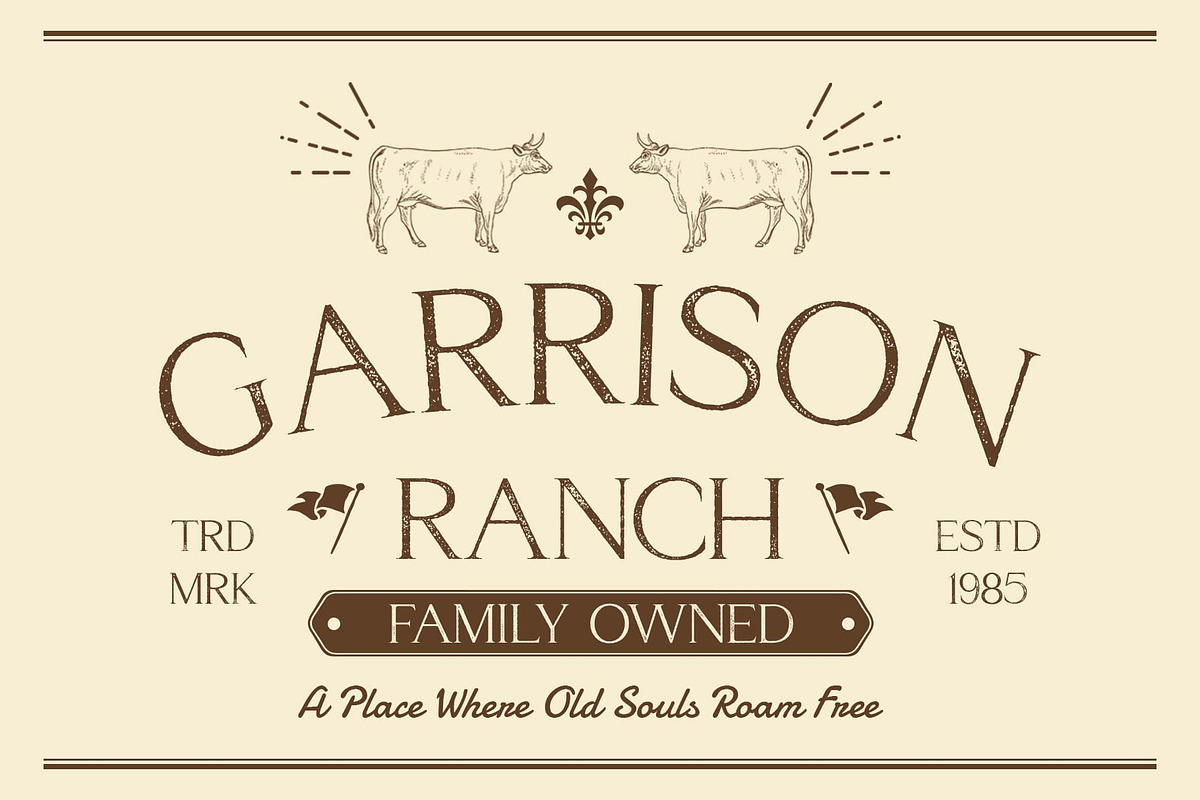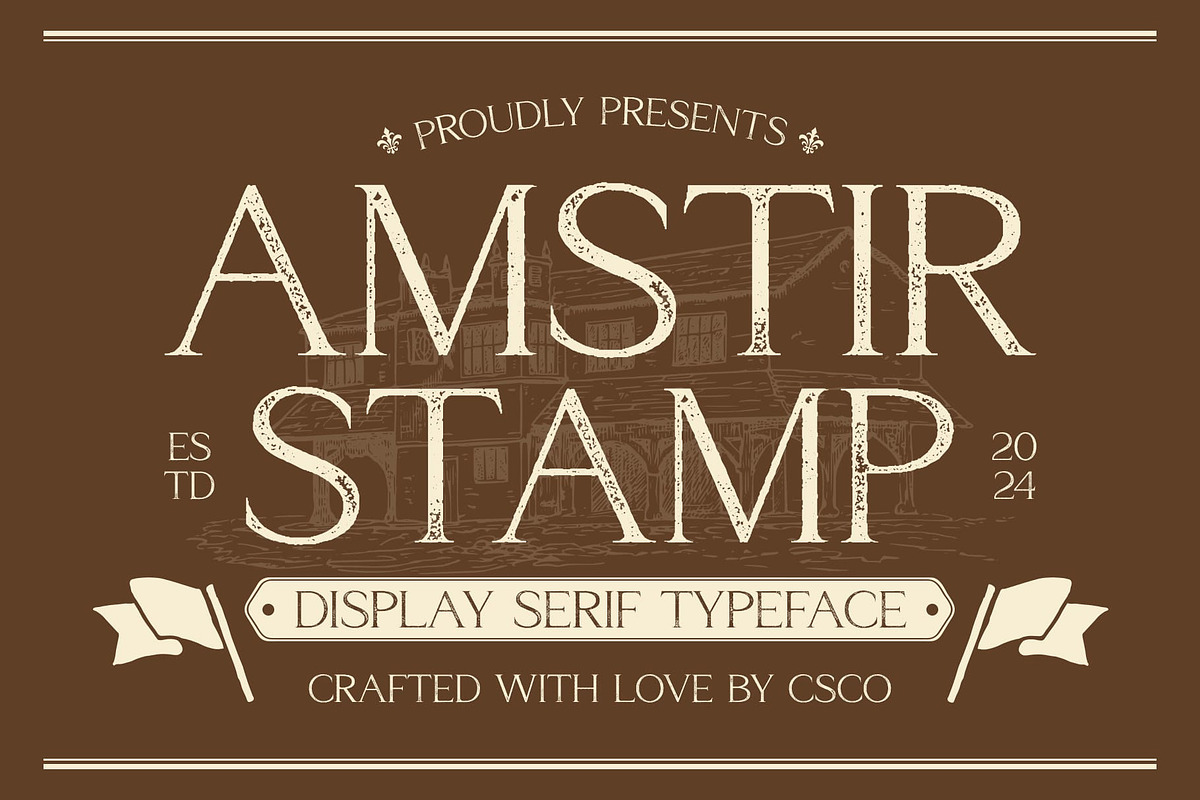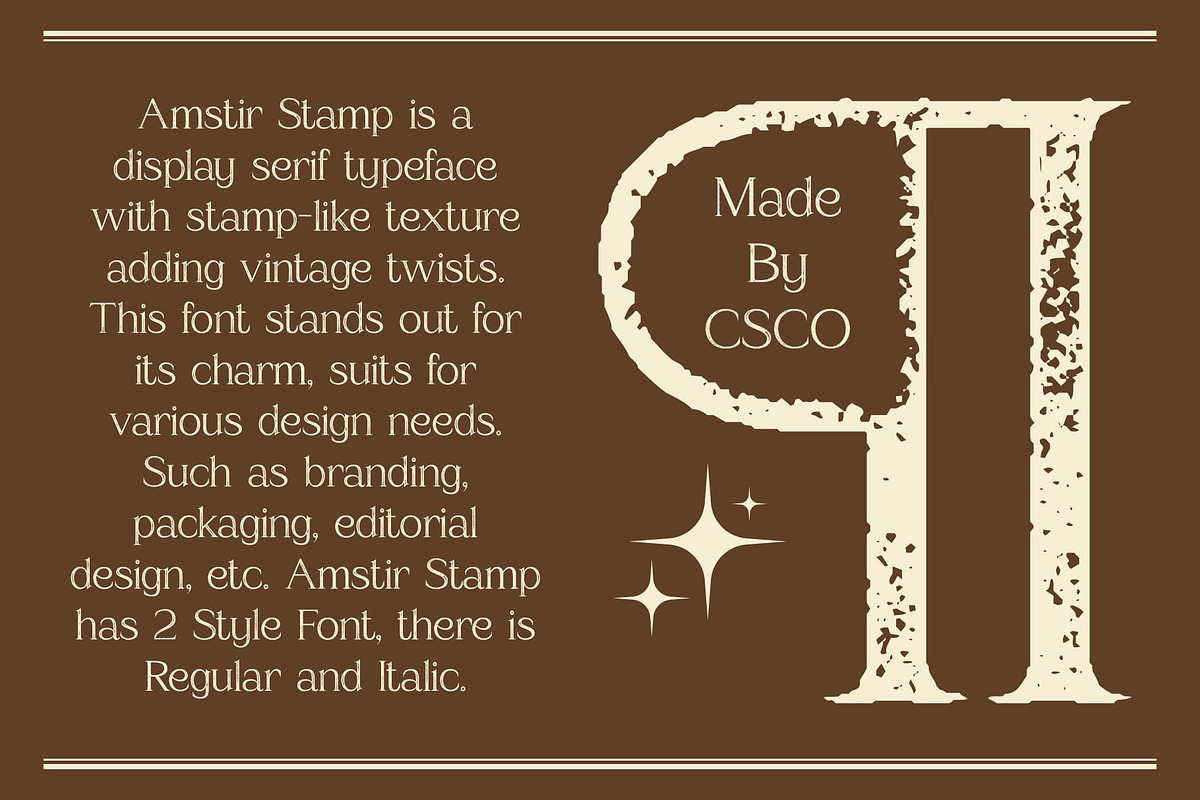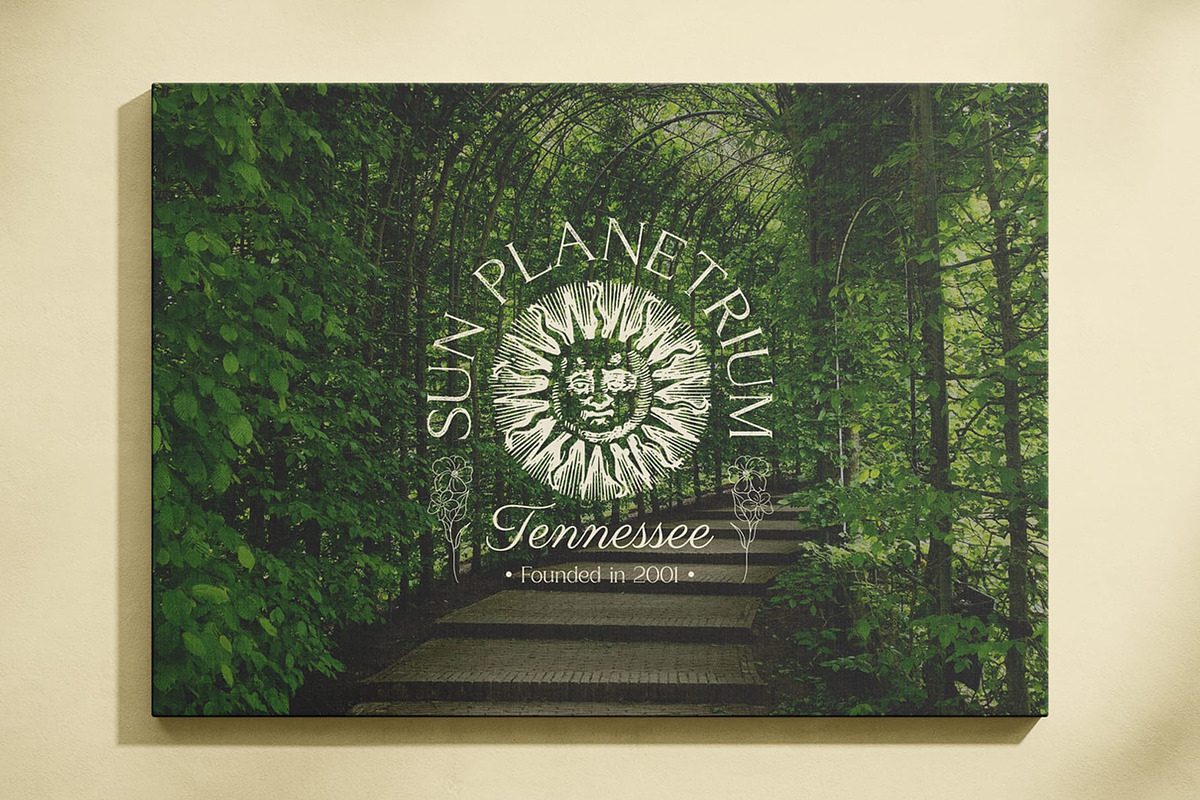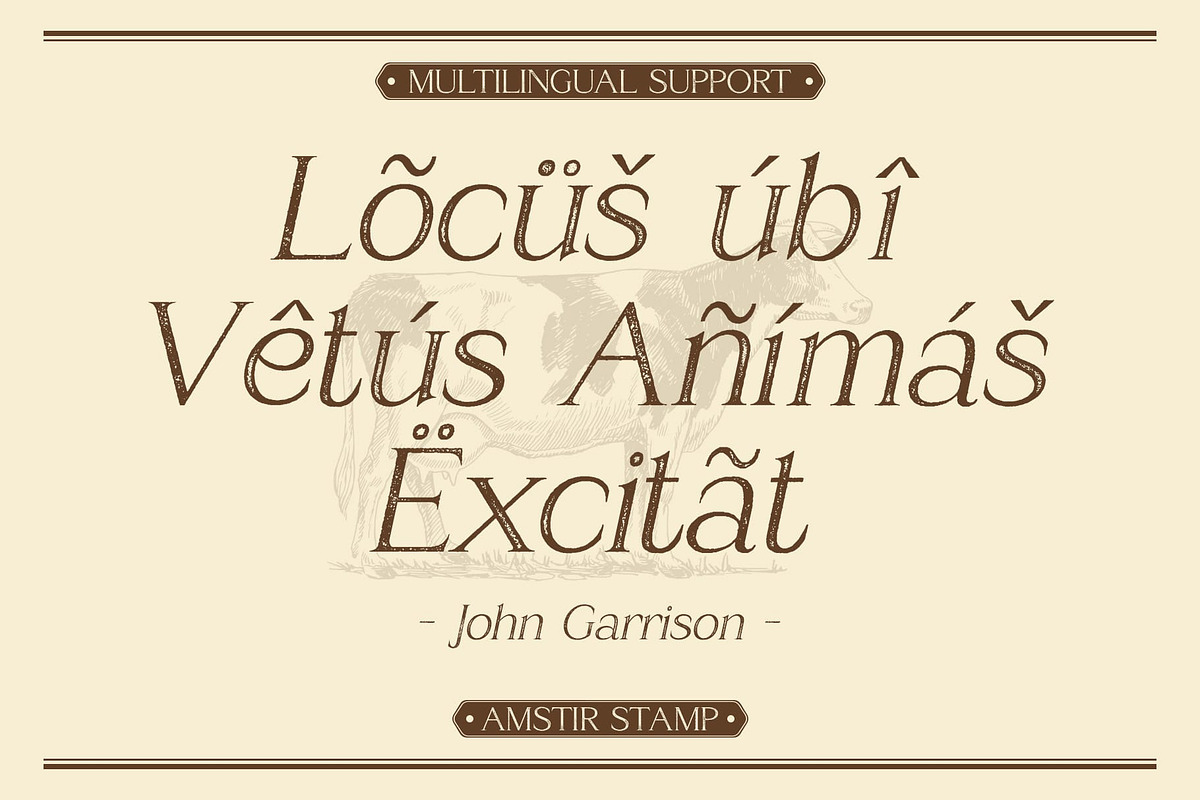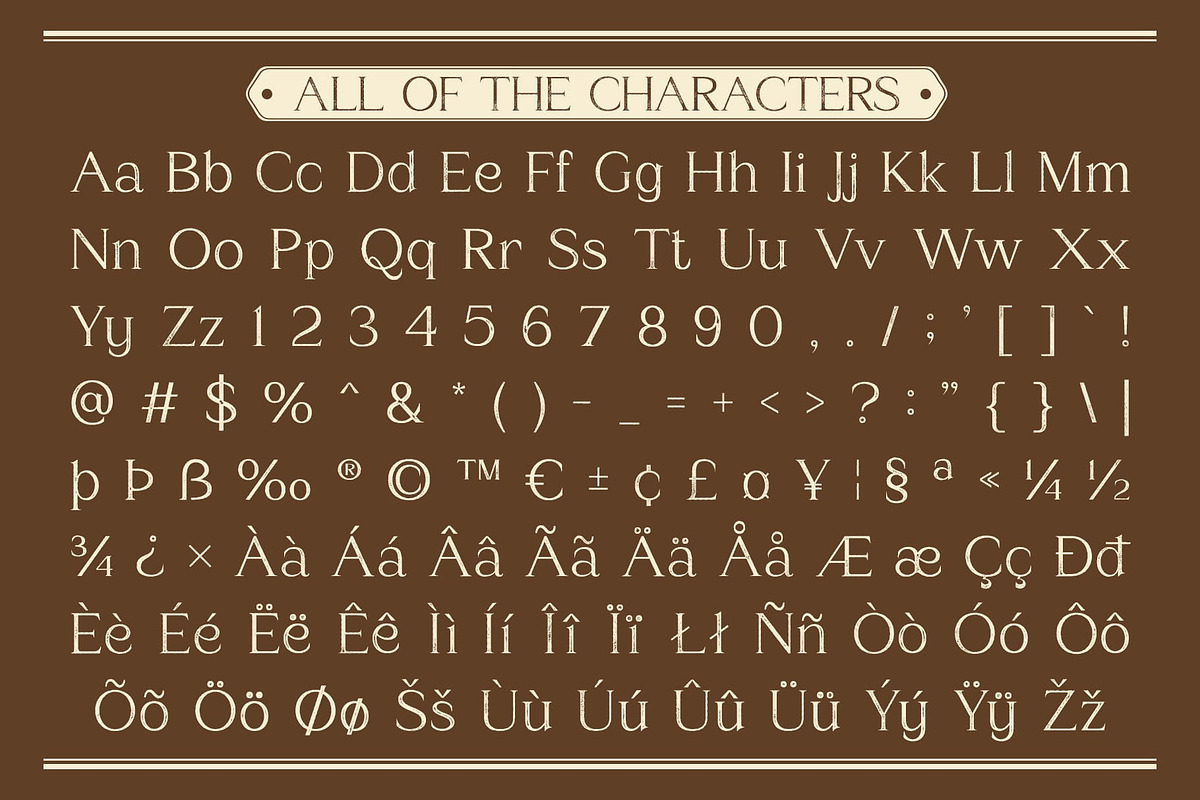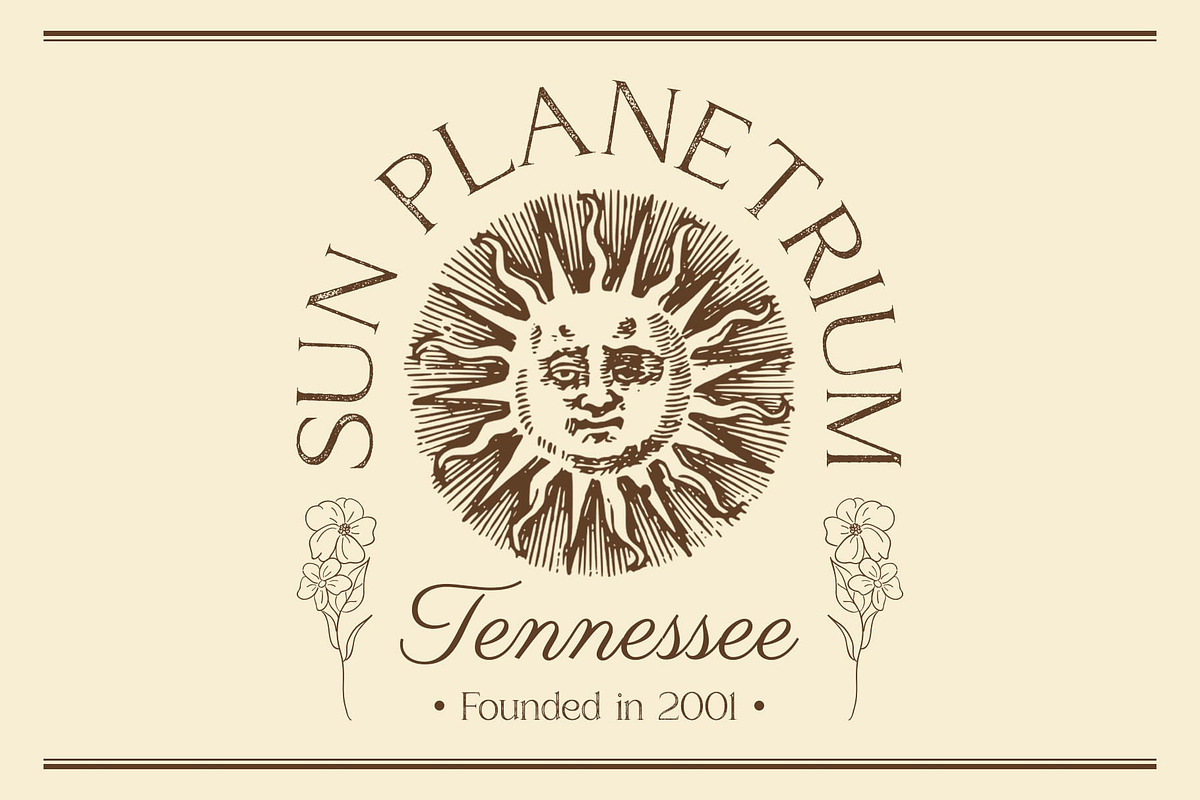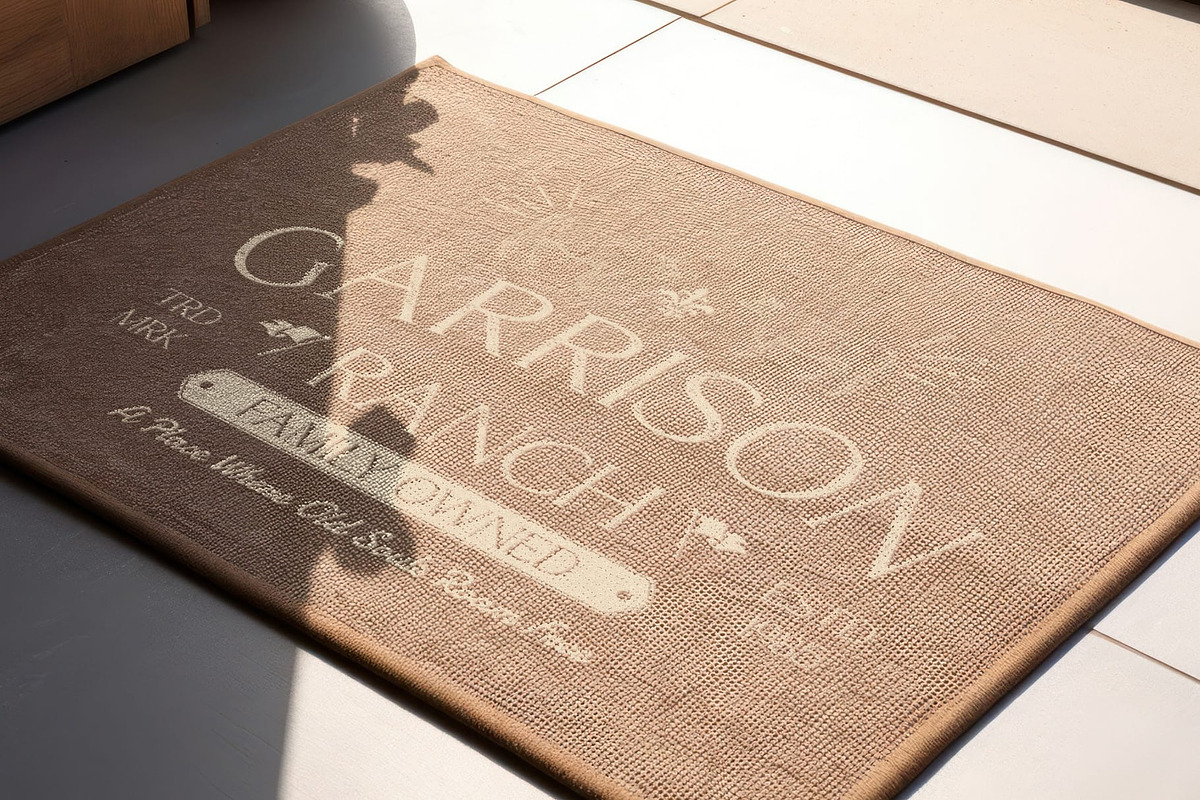
Amstir Stamp
Amstir Stamp Font: Where Classic Elegance Meets Artistic Flair
Modern Serif with Minimalist Design Amstir Stamp is a modern serif font that beautifully blends sleek, minimalist design with classic elements, resulting in a sophisticated and elegant typeface. Its clean lines and refined letterforms provide a contemporary aesthetic that works harmoniously across a variety of applications, making it a versatile choice for today’s design landscape.
Unique Stamp Effect for Artistic Appeal Enhanced by a distinctive stamp effect, Amstir Stamp creates a unique and artistic look that adds an intriguing layer of character to your designs. This vintage touch infuses each letter with personality, transforming simple text into captivating visuals. The combination of modern elegance and a playful stamp finish makes this font perfect for projects that seek to balance sophistication with a creative edge.
Versatile for Various Applications Ideal for branding, invitations, and promotional materials, Amstir Stamp excels in settings that require both clarity and charm. Its minimalist approach allows for easy readability, ensuring that your message is communicated effectively, while the artistic flair of the stamp effect draws the eye and engages the audience. Whether you’re designing elegant invitations or striking branding materials, this font adapts effortlessly to fit your vision.